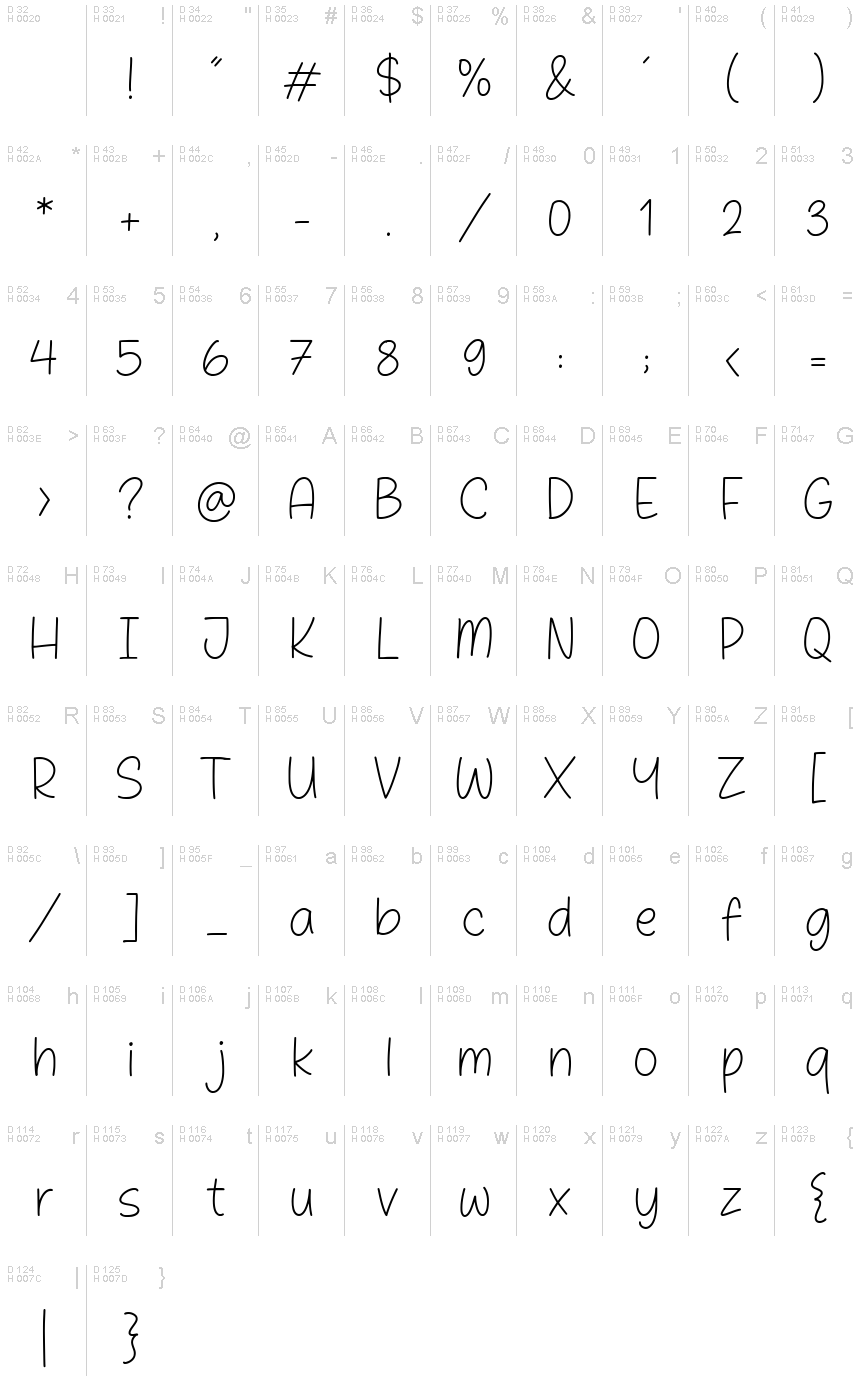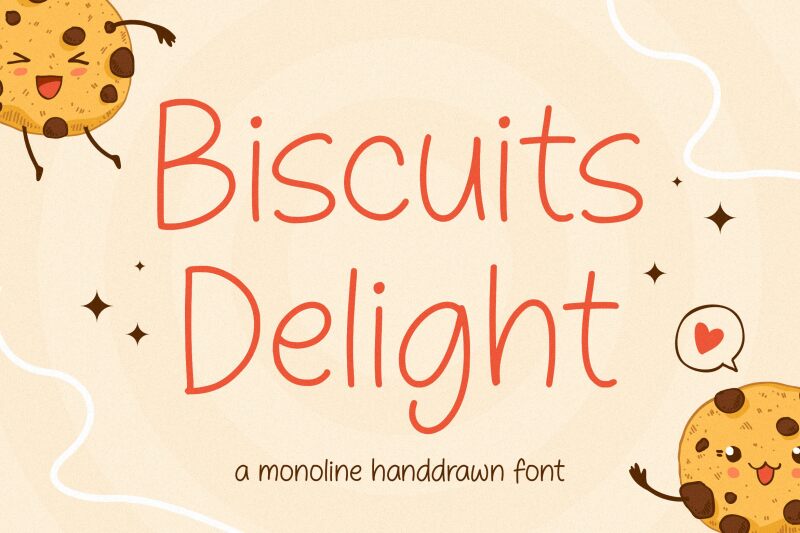
Biscuits Delight
Biscuits Delight font, crafted by Balpirick Studio, exudes a charmingly whimsical character that evokes warmth and nostalgia. With its playful handwritten style, this font dances effortlessly across the page, bringing a personal touch to any design. The light strokes create an airy feel, making it perfect for casual yet elegant applications.
Visually striking, its fluid letters call to mind delightful moments spent in cozy cafés or at home baking sessions. The rounded edges and subtle variations give it an inviting personality that enhances projects ranging from invitations to branding materials.
Ideal for anything from desserts and artisanal goods to personal blogs and children’s books, Biscuits Delight infuses creativity into every word while maintaining clarity and ease of reading. Its unique charm ensures it stands out beautifully in a crowded visual landscape.